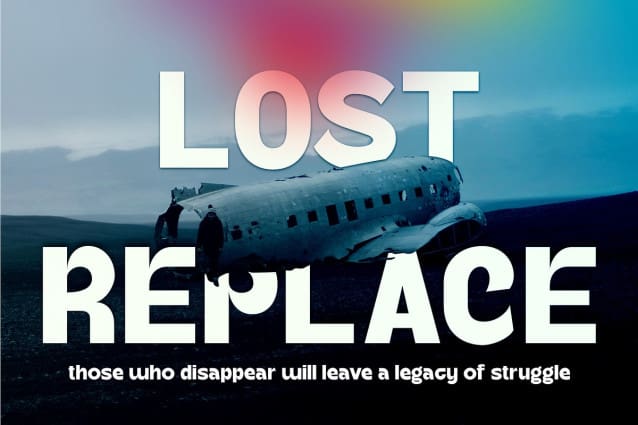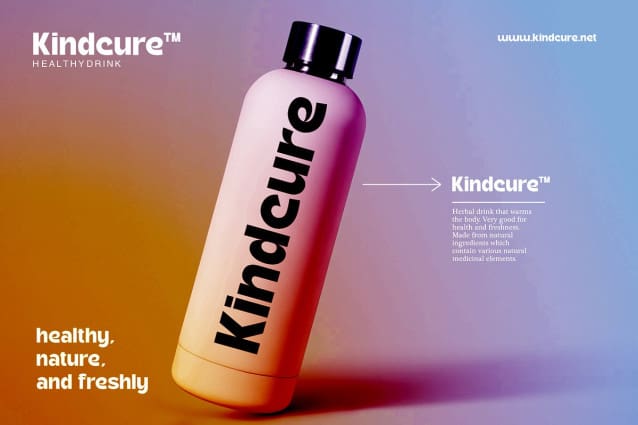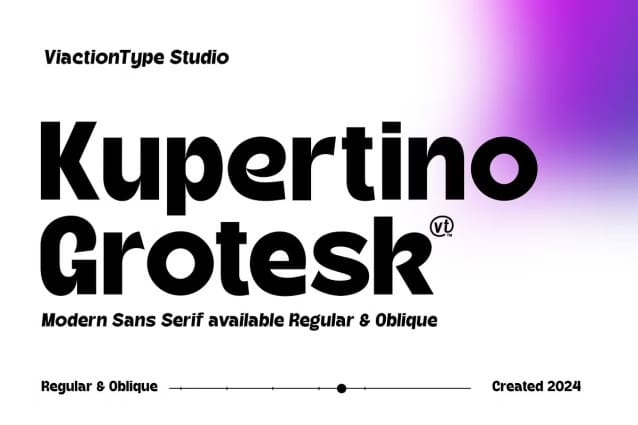
Kupertino Grotesk Font, a modern sans serif font designed for clarity and impact. With two distinct styles—regular and oblique—Kupertino Grotesk offers versatility and aesthetic appeal suitable for a wide range of design projects.
Modern Sans Serif Design: Clean lines and bold strokes define the contemporary aesthetic of KupertinoGrotesk, making it ideal for both digital and print media.
Versatile Usage: Perfect for headlines, body text, branding, and digital displays, Kupertino Grotesk ensures readability while maintaining a stylish appearance.
Two Styles Available: Choose between the straightforward elegance of the regular style or the dynamic flair of the oblique variant to suit different design needs.
Use Kupertino Grotesk to enhance websites, mobile apps, marketing materials, and more, ensuring a professional and modern look that captivates audiences. Discover the clarity and versatility of KupertinoGrotesk today and elevate your design projects with its bold yet refined typography.